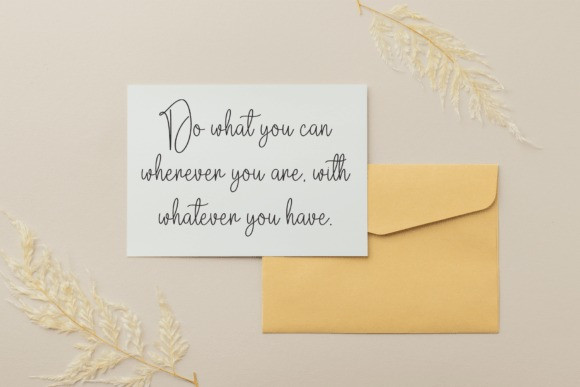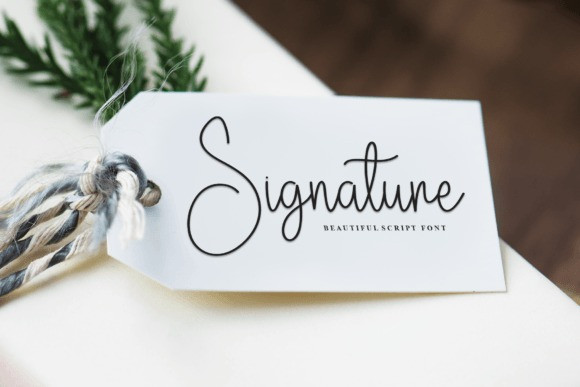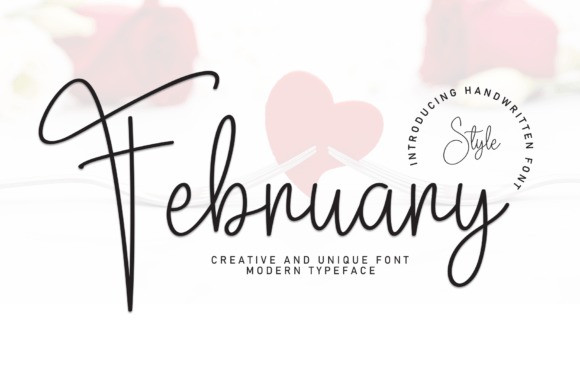
February Handwriting Font
February Handwriting Font is a delightful handwritten font that radiates warmth and friendliness. Its playful strokes and charming irregularities capture the essence of casual handwriting. Perfect for adding a personal touch to invitations, greeting cards, and social media posts, February infuses joy and personality into any design project.